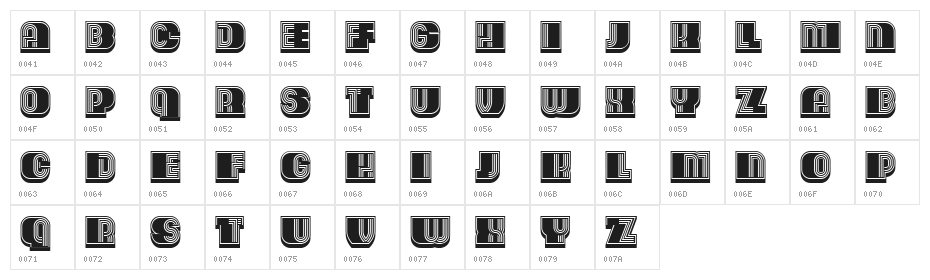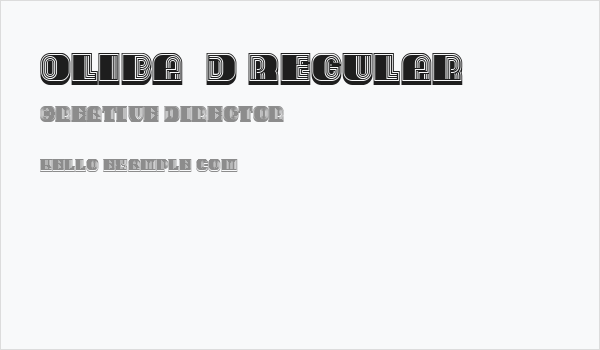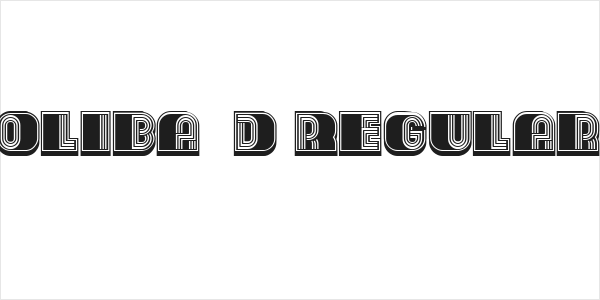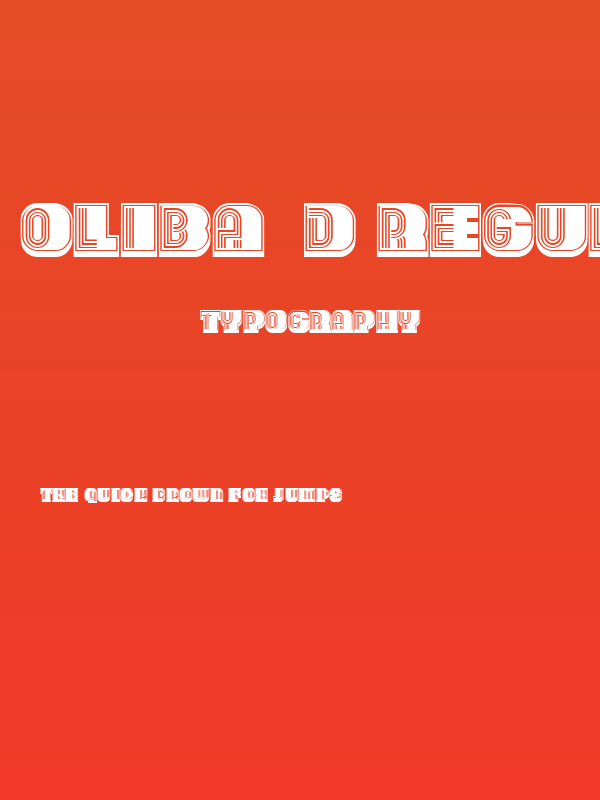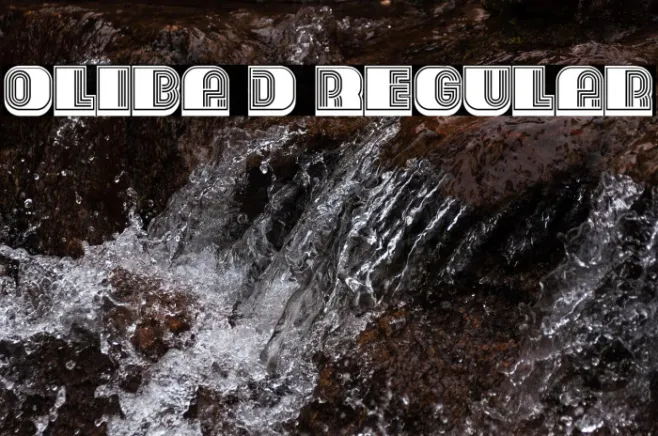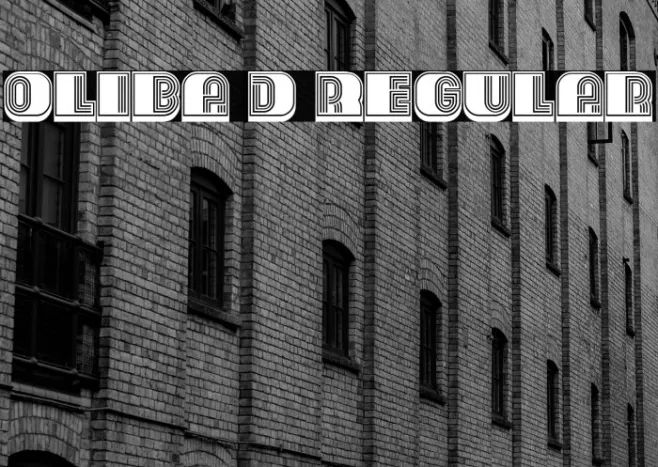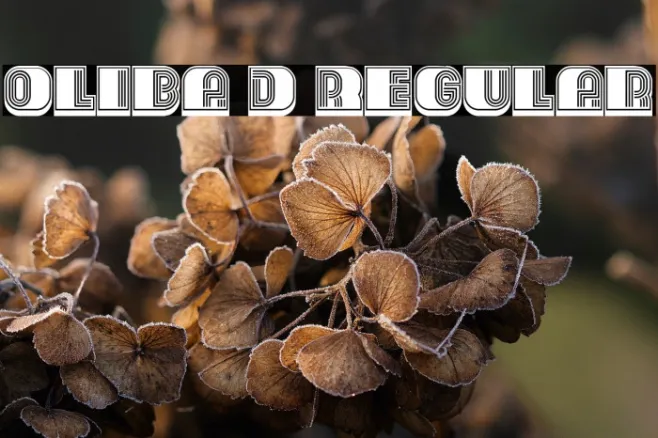
Oliba 3D Regular Font
Oliba 3D Regular Description
This font features a bold, three-dimensional design with a strong geometric influence. Each character is outlined with a thick border, creating a layered effect that gives the impression of depth and solidity. The letters are constructed with clean, straight lines and sharp angles, emphasizing a modern and industrial aesthetic. The use of parallel lines within the characters adds a sense of movement and dynamism, making it visually striking. This font is highly decorative, making it ideal for attention-grabbing headlines or titles. Its unique style is both playful and assertive, ensuring it stands out in any design context.
| Proposed Projects | Ideal for posters, logos, branding, and any project requiring a bold, eye-catching typeface. |